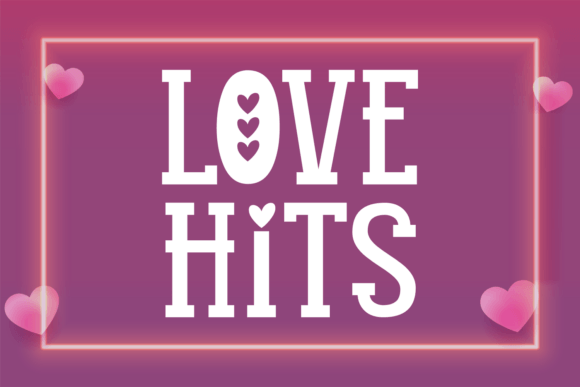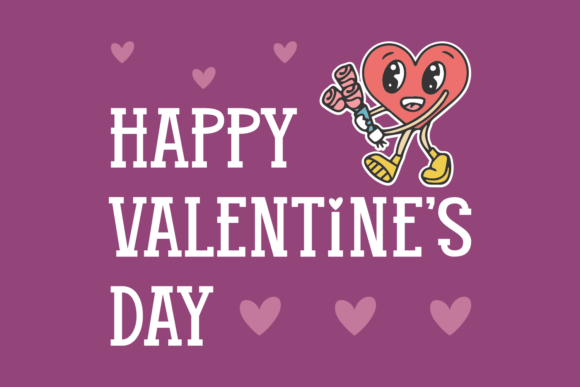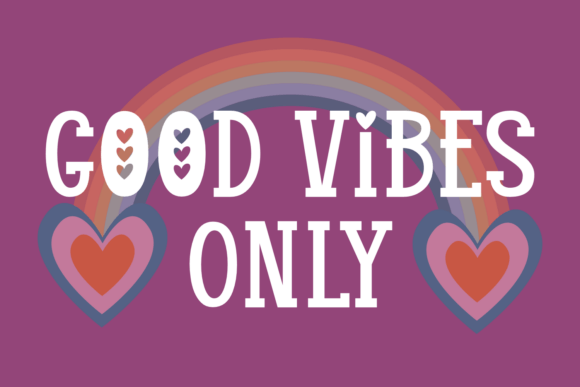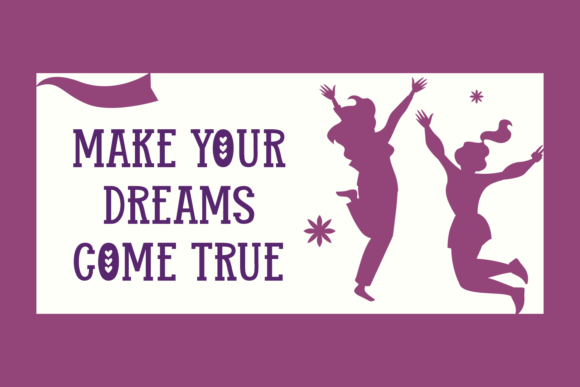
Love Hits Font
About the Love Hits Font
Experience the unique personality of Love Hits Font, a font designed for impact. Welcome to “Love Hits”, a distinctive Slab Serif Font designed to infuse a sense of affection and romance into your creative works. Ideal for your Valentines Day expressions, wedding bells’ heralding, and stirring love messages, this font adds tenderness to your greeting cards, school crafts, and branding identities.
Whether used in logotypes, book covers, craft projects, magazines, or posters, “Love Hits” seamlessly blends in, exuding a whimsical yet feminine ambiance. This multilingual font elevates the sophistication of your promotional collateral and t-shirts, as well as engendering playfulness in your typography.
Showcase your fashion design prowess with “Love Hits”, perfect for creating stylish branding and captivating graphic design. Let this font lend elegance to every design, making it your timeless solution for an enchanting, visually appealing creation.